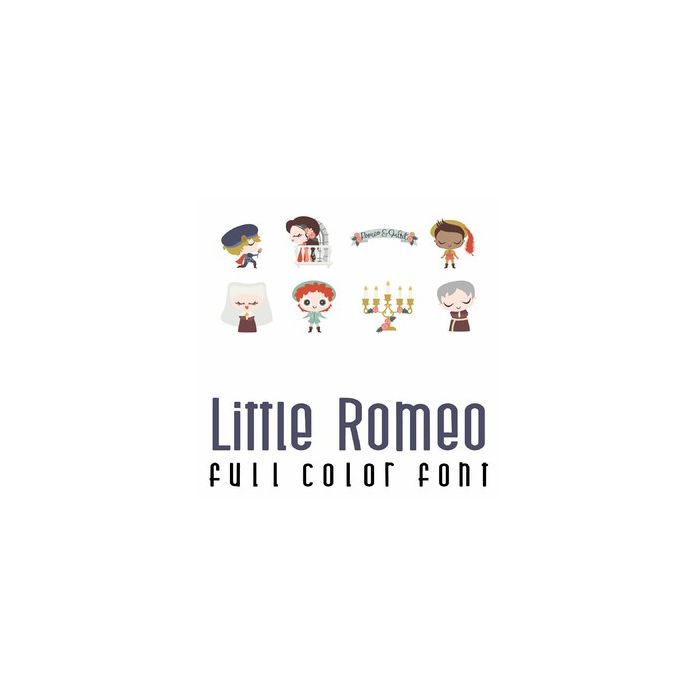
This fun full color font features 26 characters and imagery representing Shakespeare's Romeo and Juliet. Perfect for cards, crafts, gifts, decor, planner stickers, scrapbook pages and more!